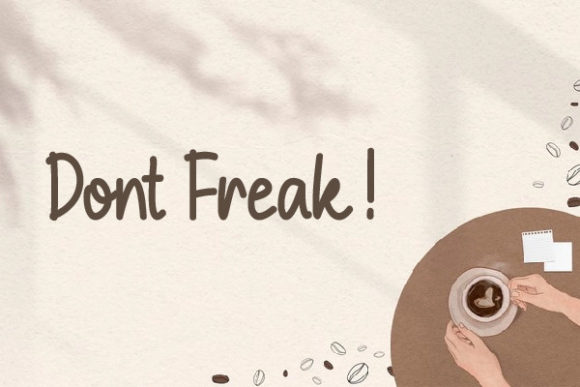
The Perfect Font for Your Creative Masterpiece
Do you ever find yourself stuck in a creative rut, staring at a blank canvas, and wondering where to start? You’ve got a brilliant idea, but the words just won’t come together. That’s where the magic of a great font comes in. For designers and creatives, the right font can make all the difference in bringing your vision to life.
Enter the charming Brownies Font, a delightful handwritten font that’s perfect for adding a touch of whimsy to your designs. Whether you’re creating a comic, poster, or quote, Brownies Font is sure to bring a smile to your face and your audience’s. Its simplicity and clean lines make it a valuable addition to any designer’s toolkit, allowing you to focus on the creative process and produce stunning results.
Brownies Font Key Features
- Unique Characteristic: The font features a distinctive, handwritten style with bold and expressive lines, making it ideal for creative and artistic designs
Brownies Font Review
I recently had the chance to work with the Brownies Font, and I must say it’s a unique and intriguing choice. Here are my thoughts on what works well and what doesn’t.
- The Brownies Font has a playful, hand-drawn feel that’s perfect for creative projects like packaging design or children’s books.
- The font’s irregularities give it a charming, human touch that’s hard to find in more formal typefaces.
- The font is highly legible, even at small sizes, making it a great choice for body text or headings.
- The Brownies Font may not be the best choice for professional or formal projects, as it can come across as too casual or playful.
- The font’s irregularities can also make it difficult to use in certain contexts, such as in situations where precision is key (e.g. technical documentation).
Overall, I think the Brownies Font is a great choice for designers looking to add some personality to their projects. Just be sure to use it in contexts where its playful, human feel will shine through.
The Brownies Font is perfect for creating whimsical and playful designs, such as:
- Food-related graphics and logos
Alternatives to Brownies Font
Raleway Font
Raleway Font is a sans-serif typeface that is highly legible and versatile. It is suitable for both body text and headings. It is a popular alternative to Brownies Font due to its clean and modern design.
Comparison: Raleway Font is more modern and minimalist compared to Brownies Font, which has a more classic and elegant feel.
Playfair Display Font is a luxurious and elegant serif typeface that is perfect for creating a sophisticated and high-end design. It is ideal for use in headings and titles.
Comparison: Playfair Display Font is more ornate and luxurious compared to Brownies Font, which has a more understated and classic feel.
Merriweather Font is a classic serif typeface that is highly legible and elegant. It is suitable for use in body text and is a great alternative to Brownies Font for those who want a more traditional look.
Comparison: Merriweather Font is more traditional and classic compared to Brownies Font, which has a more modern and elegant feel.
Montserrat Font is a sans-serif typeface that is highly legible and versatile. It is suitable for use in both body text and headings and is a great alternative to Brownies Font for those who want a more modern and urban feel.